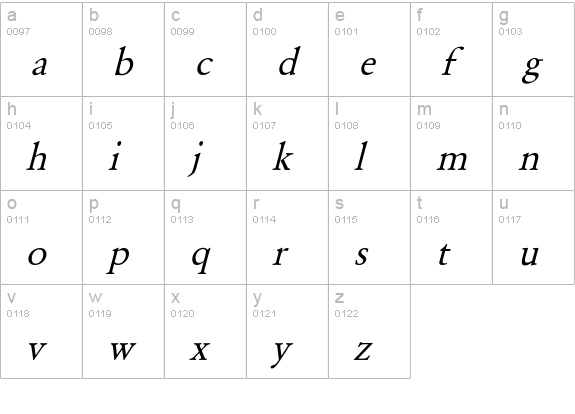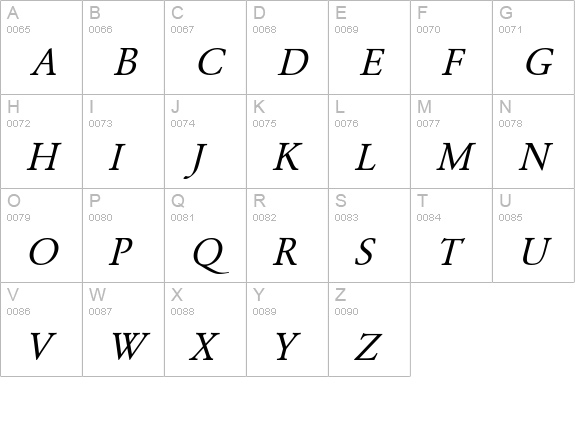
Garamond-Normal Italic is the standard, neutral, italic variant in the Garamond typeface family \xE2\x80\x94 well suited to general body text, paragraphs, and standard typographic work.
The Garamond-Normal Italic font exudes elegance and sophistication with its graceful slanted letters that flow seamlessly across the page. Designed with precision and attention to detail, this font is perfect for adding a touch of style to any project. Its classic aesthetic and timeless appeal make it a versatile choice for a wide range of design applications. Best of all, the Garamond-Normal Italic font is available for free download at FontsMarket.com! Now you can access this premium font without any cost, making it a valuable addition to your font collection. Whether you're working on a professional project or a personal creative endeavor, the Garamond-Normal Italic font is sure to elevate your design with its sophisticated charm and effortless beauty. Download it today and unlock the potential of this exquisite typeface for your next project.